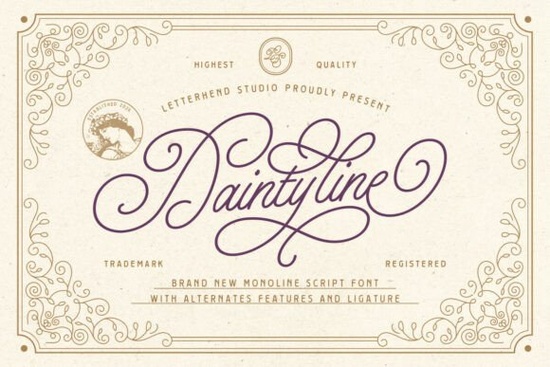
Searching for a monoline script font that feels refined without being overdone? The Daintyline Font is a carefully crafted typeface that blends classic calligraphy charm with a polished, modern finish. Its consistent line weight and graceful flourishes make it a strong pick for anyone working on luxury branding, wedding stationery, or elegant packaging projects. If you need a script font that looks professional and hand-lettered at the same time, this one is worth a closer look.
What Makes the Daintyline Monoline Script Style Stand Out?
Plenty of script fonts claim to be elegant, but many end up looking either too busy or too plain. The Daintyline Font sits in a sweet spot. Its monoline construction means the stroke weight stays even throughout each letter, which gives text a clean and balanced appearance. The sweeping flourishes add personality without sacrificing readability.
What really sets it apart are the professional OpenType features included with the font:
- Alternate characters Swap out letters to create a more custom, hand-lettered feel
- Ligatures Smooth connections between letter pairs for a natural flow
- Victorian-inspired details Nods to classic calligraphy with a contemporary edge
These features give you real flexibility. Instead of settling for a cookie-cutter look, you can fine-tune your lettering to match the exact tone of each project.
Who Is This Font Designed For?
Daintyline works well across a range of creative fields. Here are some of the most common uses:
- Luxury boutique branding Logos, business cards, and packaging for high-end shops
- Wedding stationery Invitations, RSVP cards, envelope addressing, menus, and signage
- Cosmetic and beauty packaging Labels, boxes, and product tags that need a premium feel
- Editorial and magazine headers Headlines and pull quotes that catch the eye
- Social media graphics Instagram posts, Pinterest pins, and story overlays
- Print-on-demand products Mugs, tote bags, t-shirts, and wall art with a sophisticated style
If you sell on Etsy, run a small business, or design for clients in the wedding or beauty space, a font like this can quickly become a go-to in your toolkit.
How Does It Compare to Other Script Fonts?
It helps to see how Daintyline stacks up against other popular options. If you prefer a bolder, more textured look, the Vintage Melinda typeface leans into a rough, vintage aesthetic that pairs well with rustic or retro designs. On the other hand, if you want something cozy and casual, Coconut Mocha offers a warm, relaxed script style that works beautifully for coffee brands and lifestyle projects.
For those drawn to a more traditional calligraphy approach, Valentina Calligraphy delivers ornate, flowing strokes with elaborate swashes. And if you need a versatile everyday script with a friendly tone, the Anytimes Font is a solid all-rounder that handles both headings and body accents well.
Each of these fonts fills a different creative need. The key is matching the font's personality to your project's mood.
Tips for Getting the Most Out of This Font
To make the most of Daintyline, keep these practical tips in mind:
- Use alternates intentionally. Don't swap every letter. Pick a few key characters like the first letter of a name or a capital to give your design a handcrafted touch without overcomplicating things.
- Pair it with a simple sans-serif. A clean font like Montserrat or Lato works well for body text when Daintyline handles the headline. This keeps the layout balanced and easy to read.
- Watch your letter spacing. Monoline scripts can look cramped at smaller sizes. Add a bit of tracking for product labels or social media graphics.
- Test at multiple sizes. Script fonts can behave differently on a business card versus a large banner. Always preview your work at the final output size.
- Use it for accents, not long paragraphs. This font shines in short bursts names, quotes, taglines, and headings not dense blocks of text.
If you're working on branding, wedding designs, or any project that calls for a graceful, refined script, the Daintyline Font is a reliable choice that delivers consistent results. Take a few minutes to test the alternates and ligatures you might be surprised at how much personality you can pull from a single typeface.